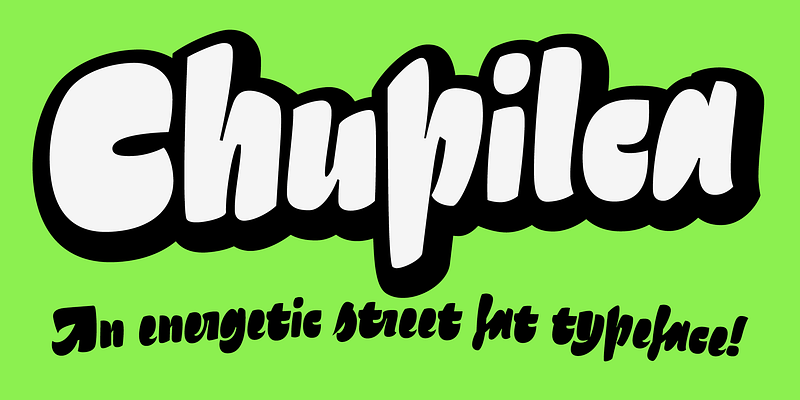
Without closed counterforms, Chupilca is an exercise in rhythm and boldness, an expressive rough script-like typeface that works nice for logos or headlines looking for a carefree and daring look. The base font is Chupilca Fat, which comes with an extruded shadow layer called Chupilca Background. Both fonts includes many alternative and contextual characters, standard and discretionary ligatures, and you can place one text box on top of the other, both perfectly aligned, to play with the color of the Fat font and its Background. Its name means a drink from the south of Argentina and Chile composed of red wine and toasted flour with a variation composed of gunpowder and schnapps, called ‘Chupilca del Diablo’, supposedly used to encourage soldiers during the armed conflict between Chile, Perú, and Bolivia called the Salitre War, which took place in 1789.